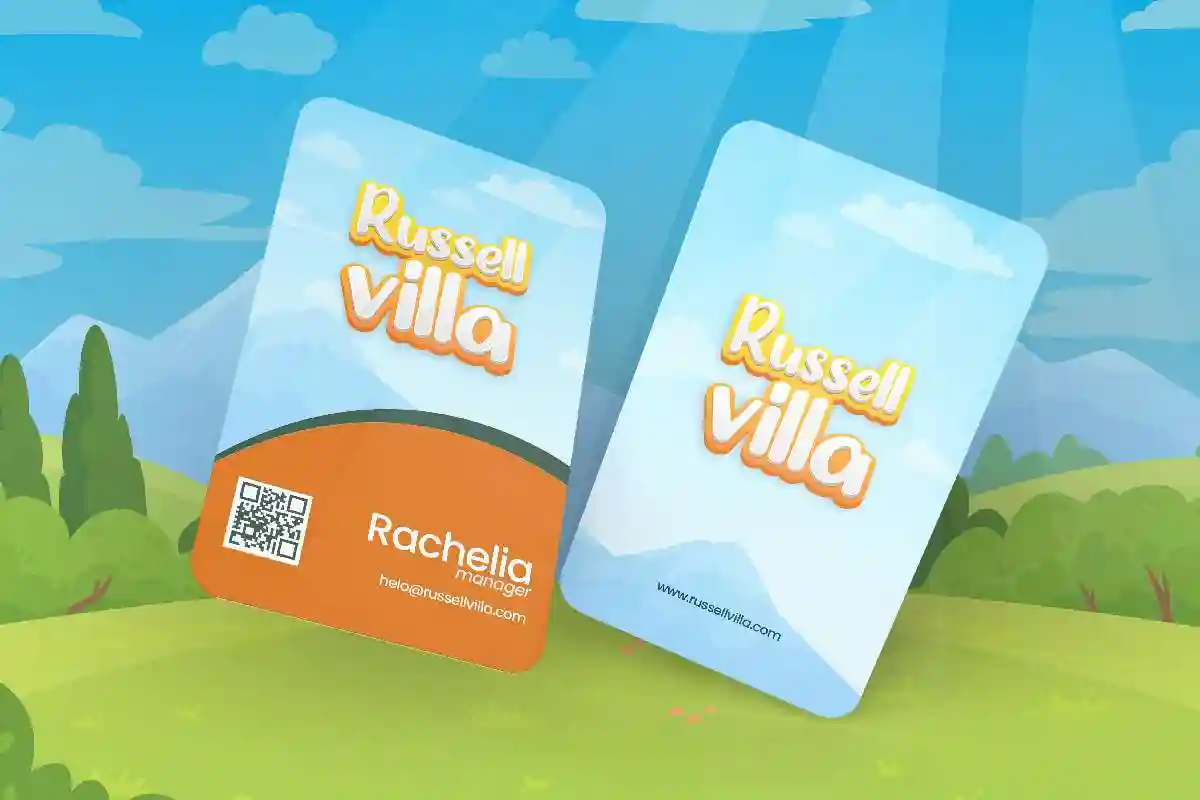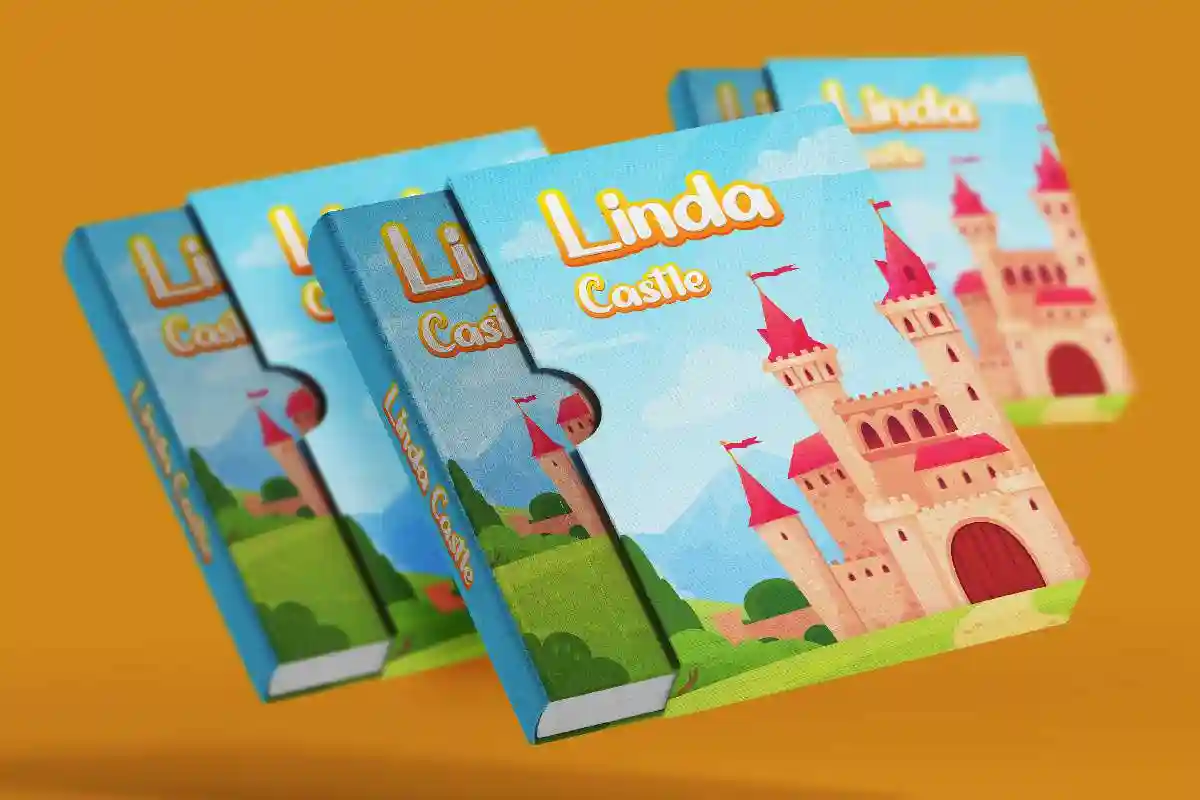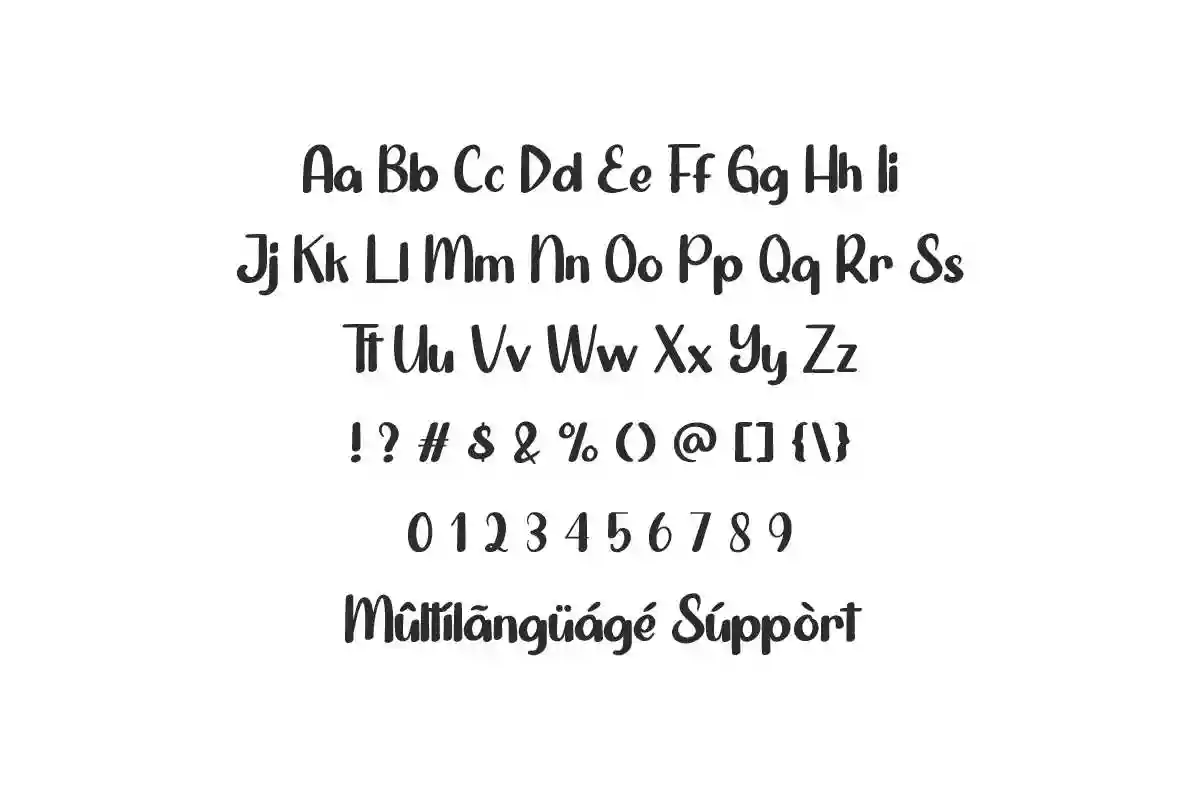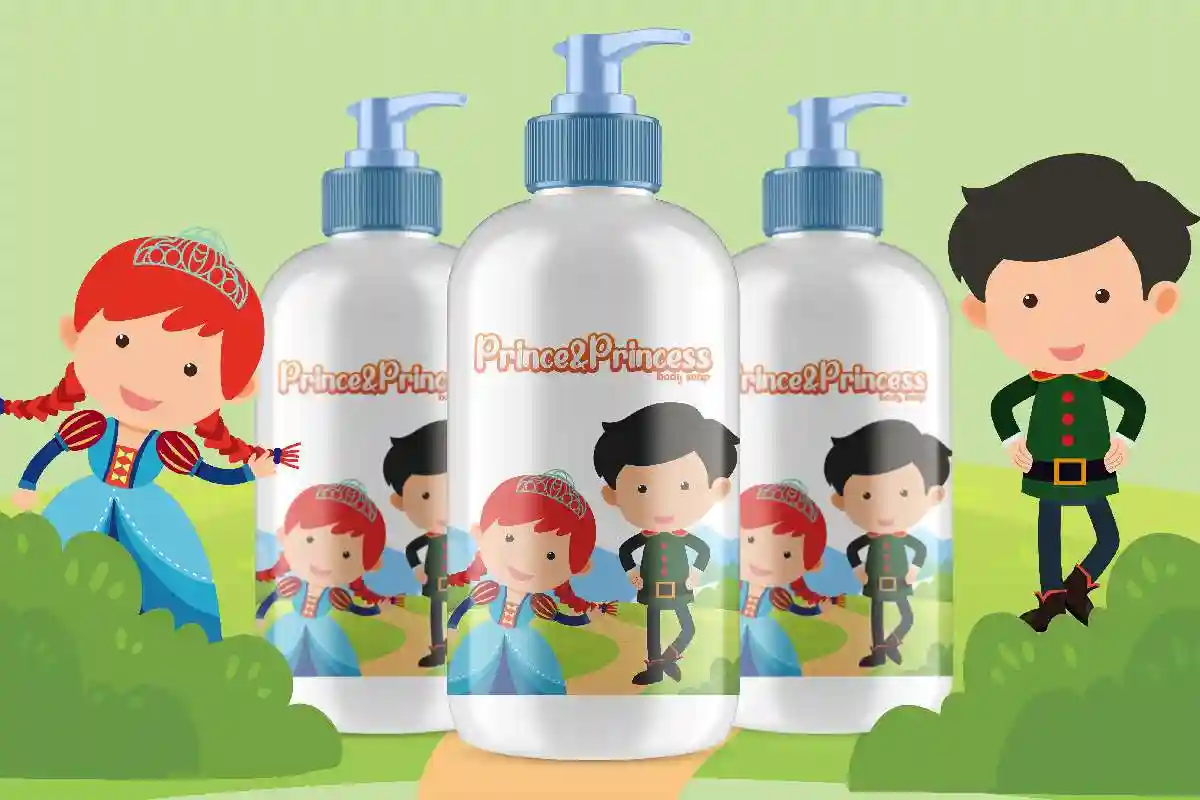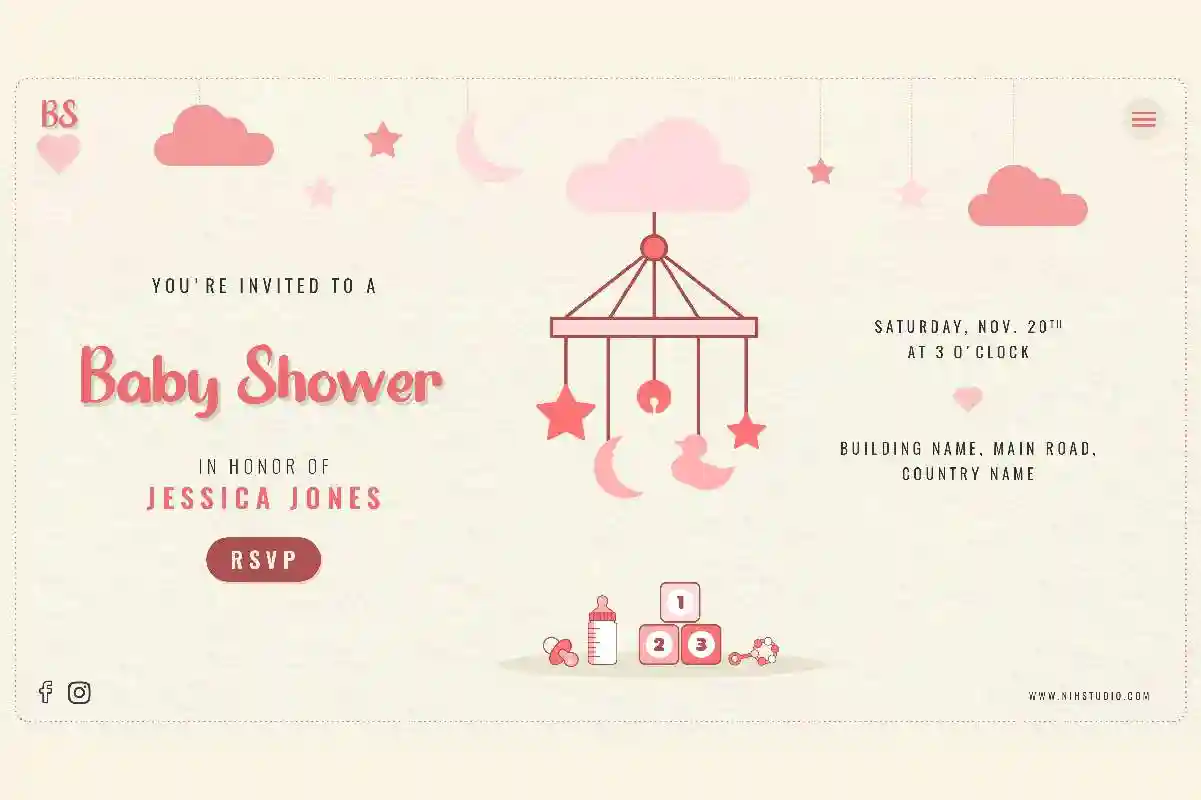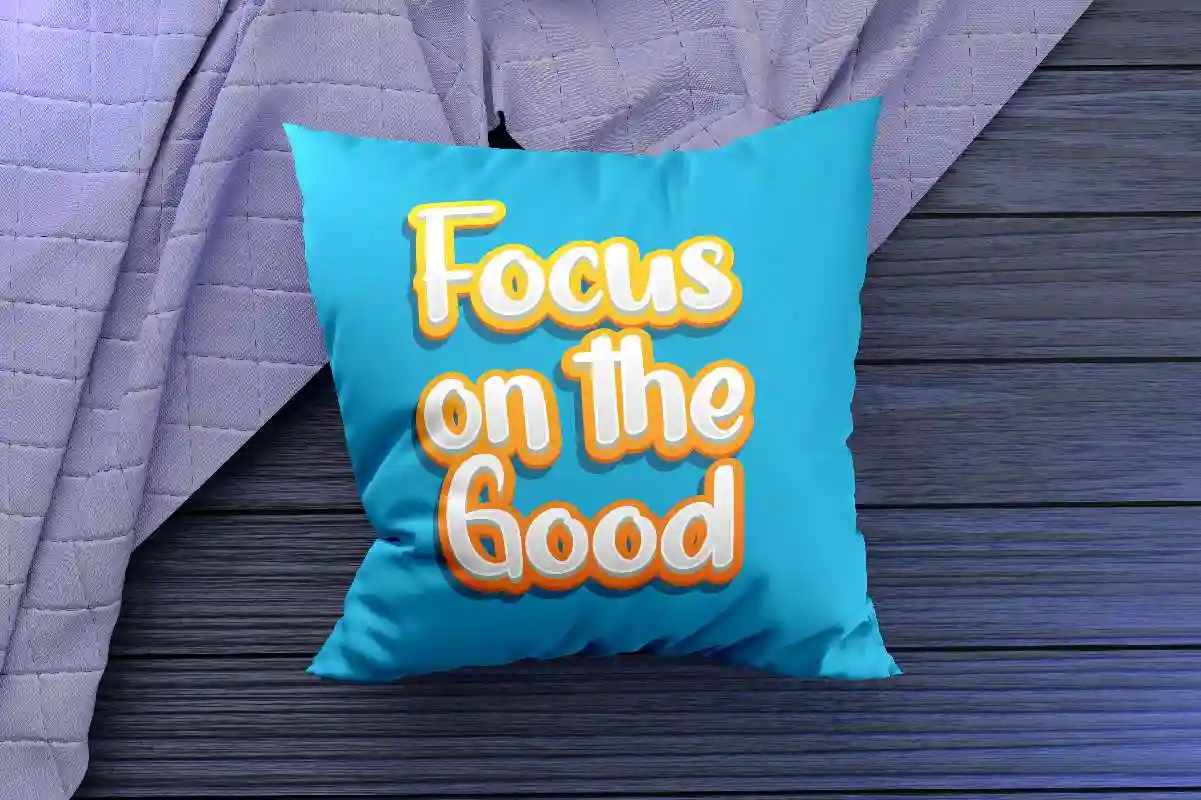
Little One Font
Little One Font is an awesome handwriting font by NihStudio, inspired by kids handwriting. Great for logo branding, movie, school, story book etc
Bring a touch of innocence, charm, and playfulness to your designs with Little One Font.
Little One Font will be great for any projects (require extended license) including : branding, logo, school, signage, stationery, video etc. The theme style of the font is cartoon, funny, and casual brush style. The font will be match for this typeface: animation, houseware, movie, school.